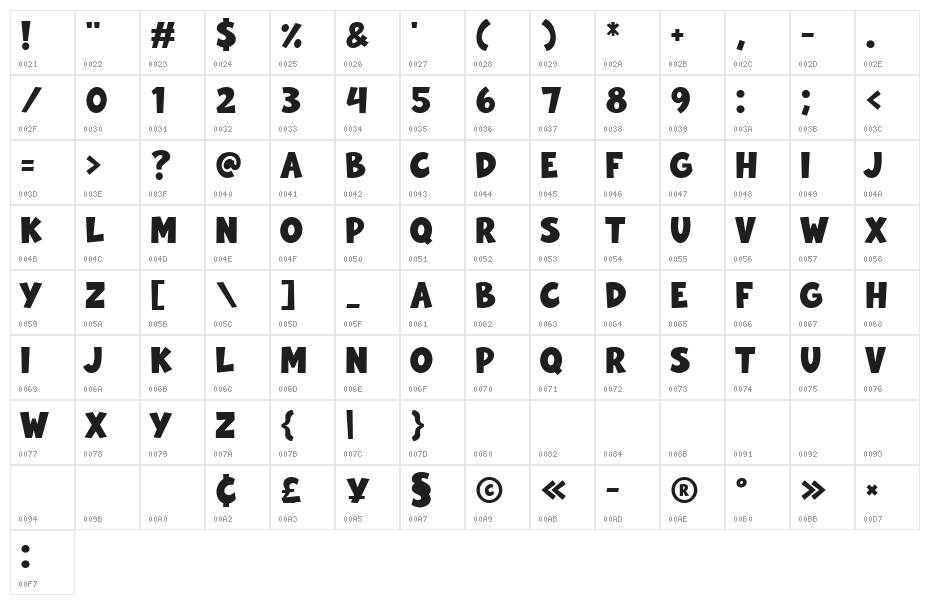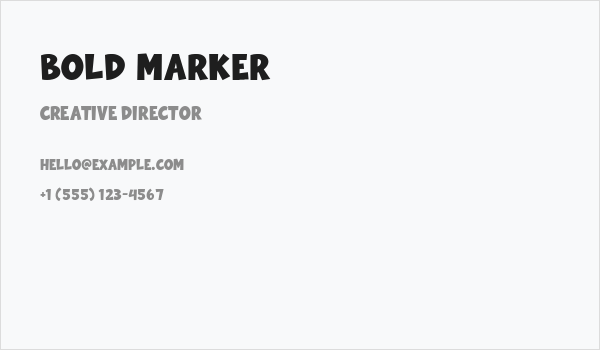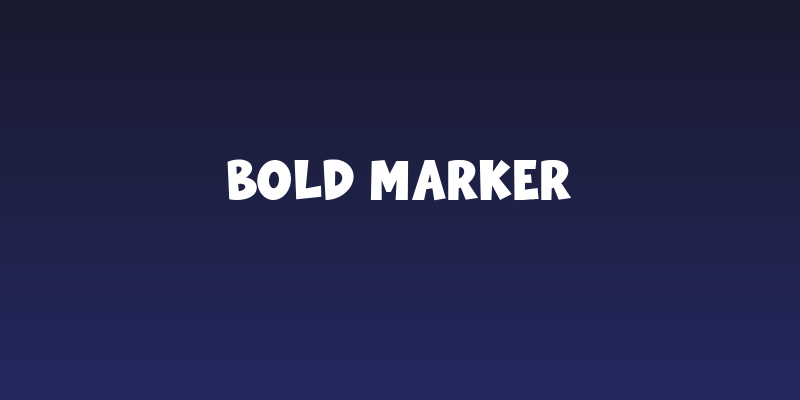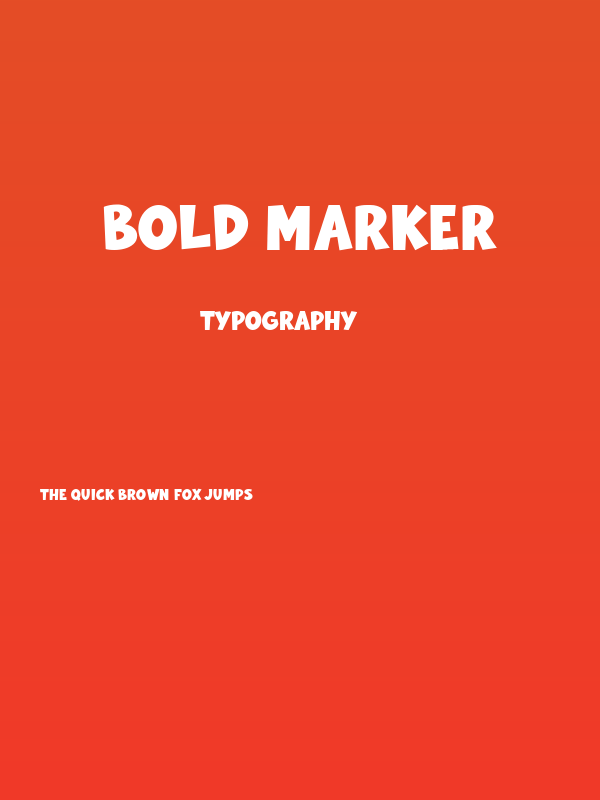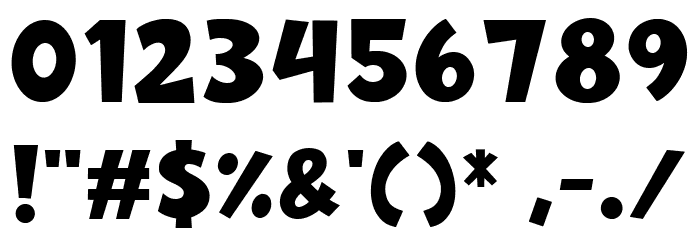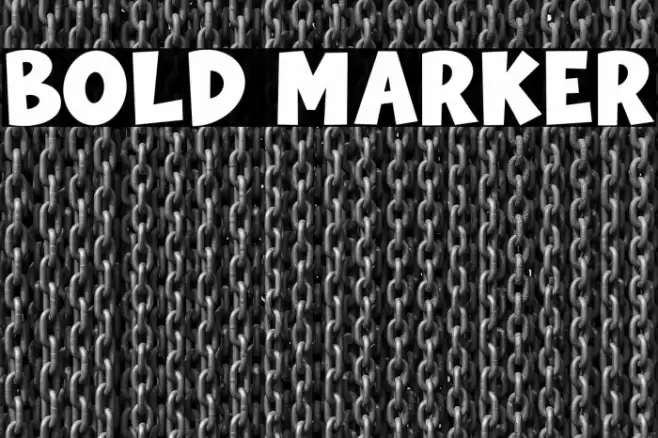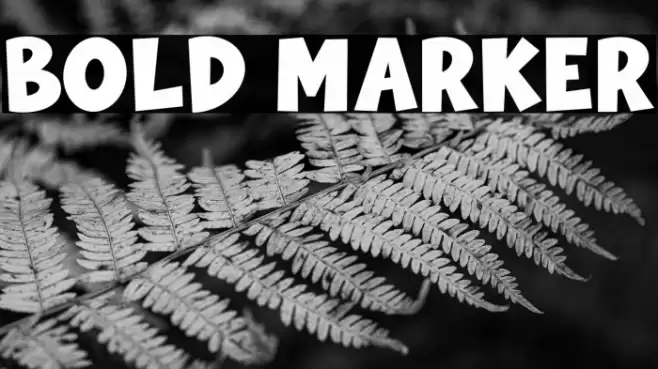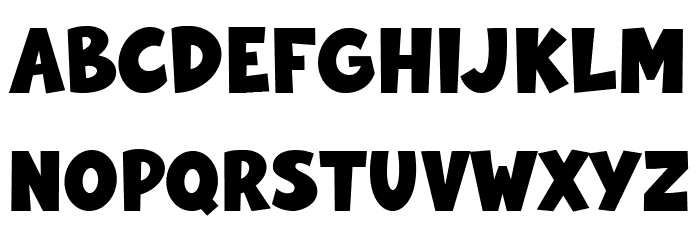
Bold Marker Font
Bold Marker Description
This font features a bold and playful design with exaggerated, rounded shapes that give it a cartoonish and friendly appearance. The characters are thick and uniform, with a slight tilt that adds a sense of movement and energy. The uppercase and lowercase letters maintain a consistent style, ensuring readability while adding a touch of whimsy. The numbers and special characters follow the same bold and dynamic style, making them stand out. This font is ideal for projects that require a fun and engaging look.
| Overall Style | Playful, Cartoonish |
| Proposed Projects | Ideal for children's books, comic strips, playful branding, and eye-catching posters. |